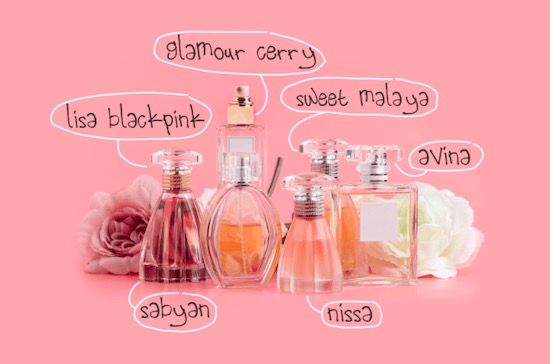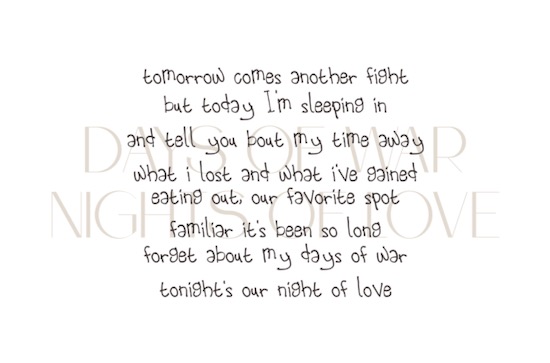
Can’t Write Font
Can’t Write is an elegant and modern handwritten font that was designed and published by Forberas Club. It looks raw and real as if you actually wrote the words. This typewriter script font is perfect for digital planners and digital notebooks! It is sure to make your creations look authentic and handmade.